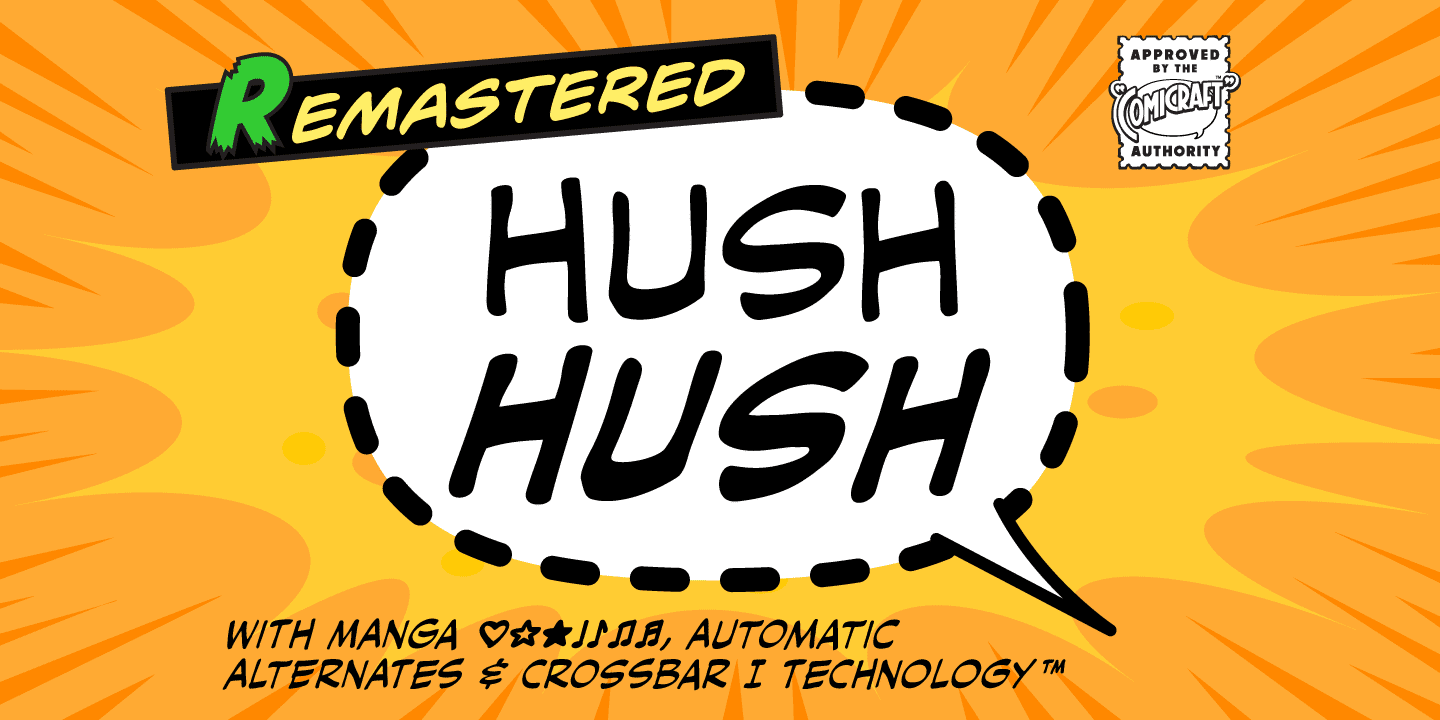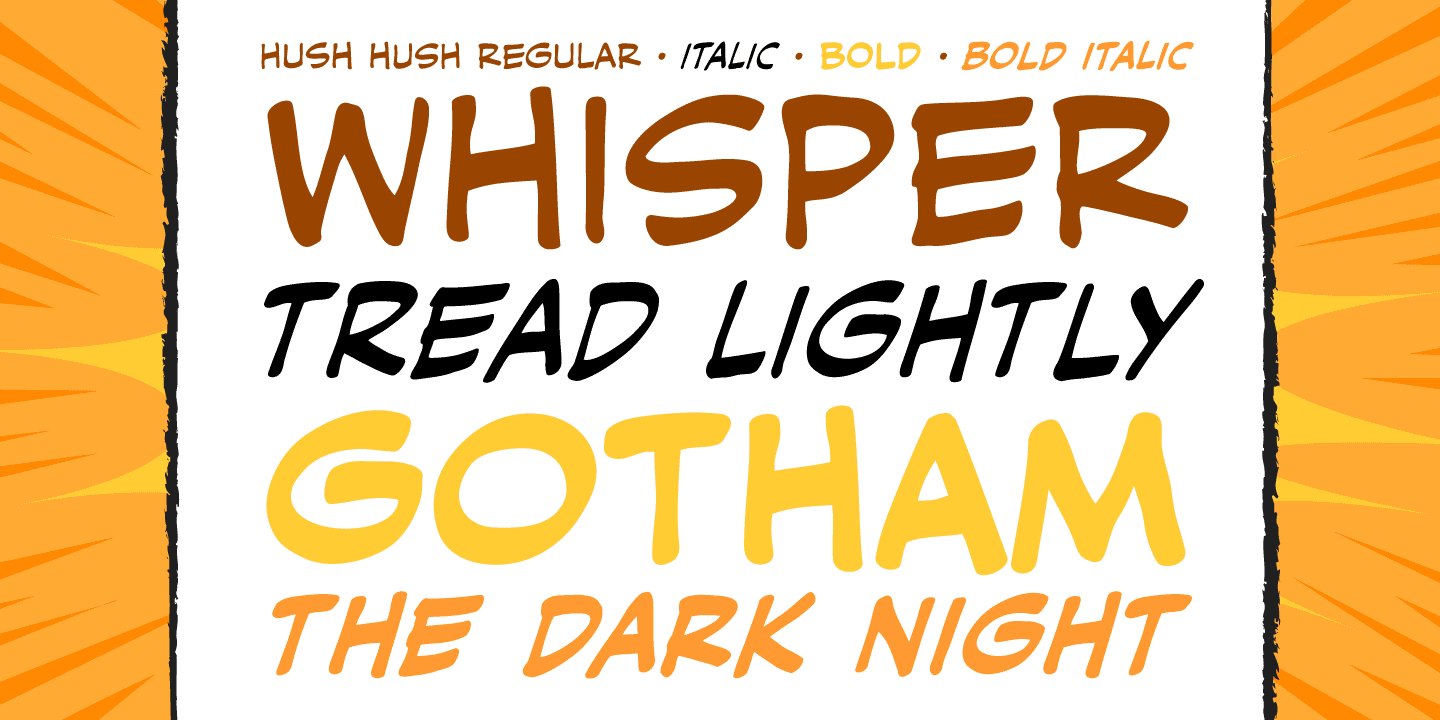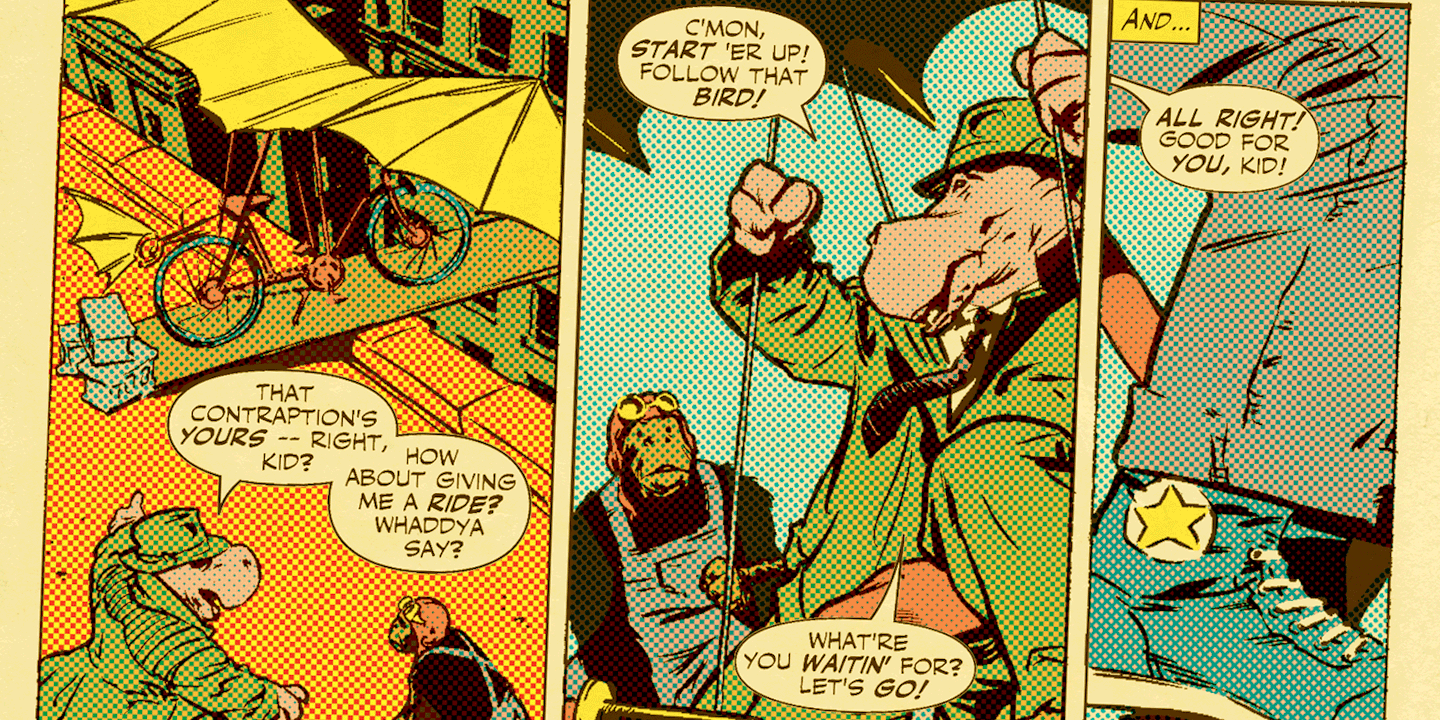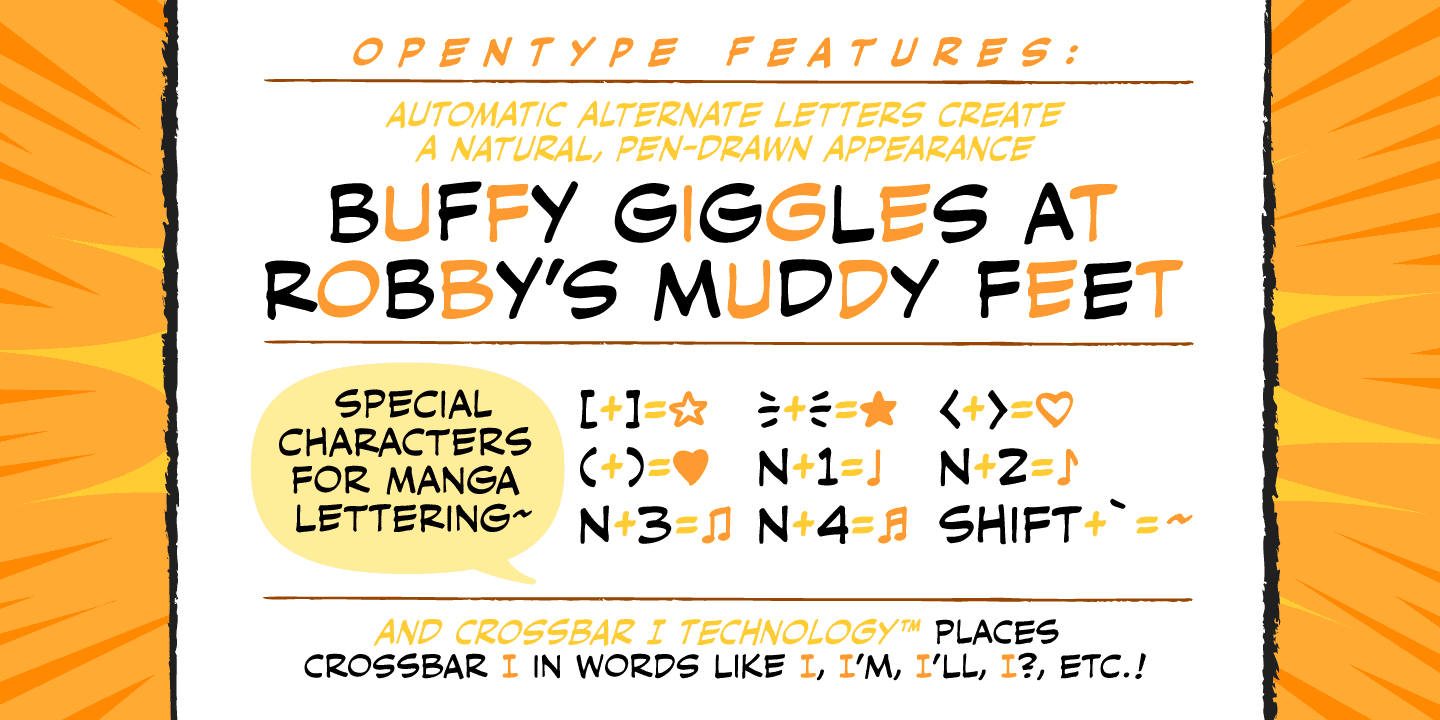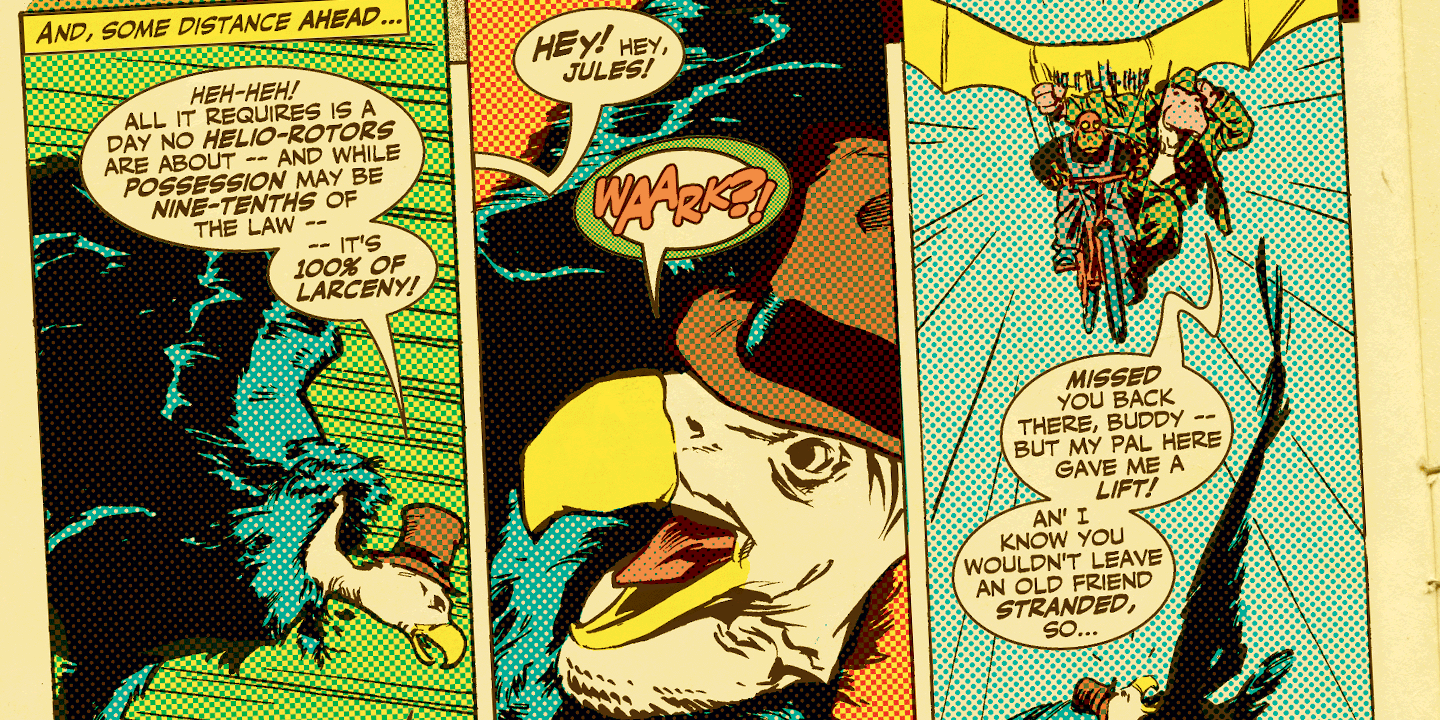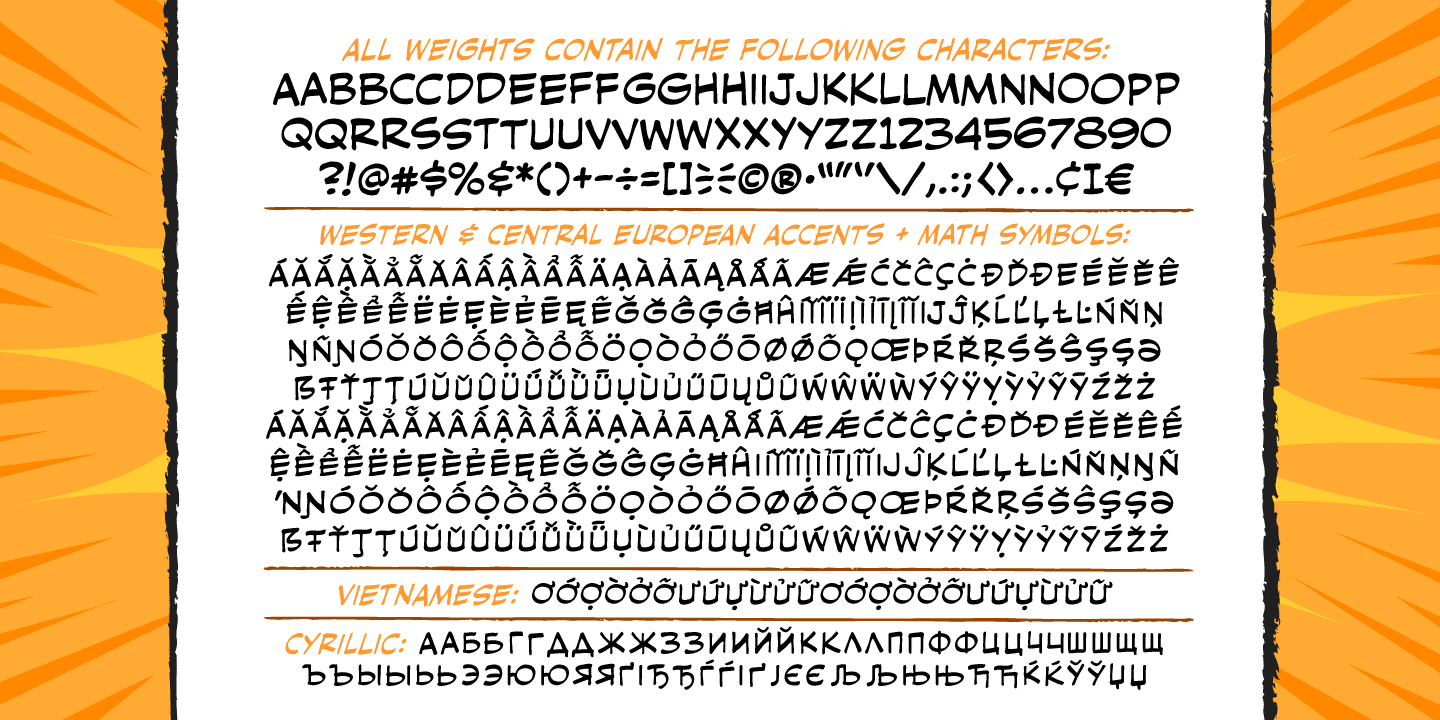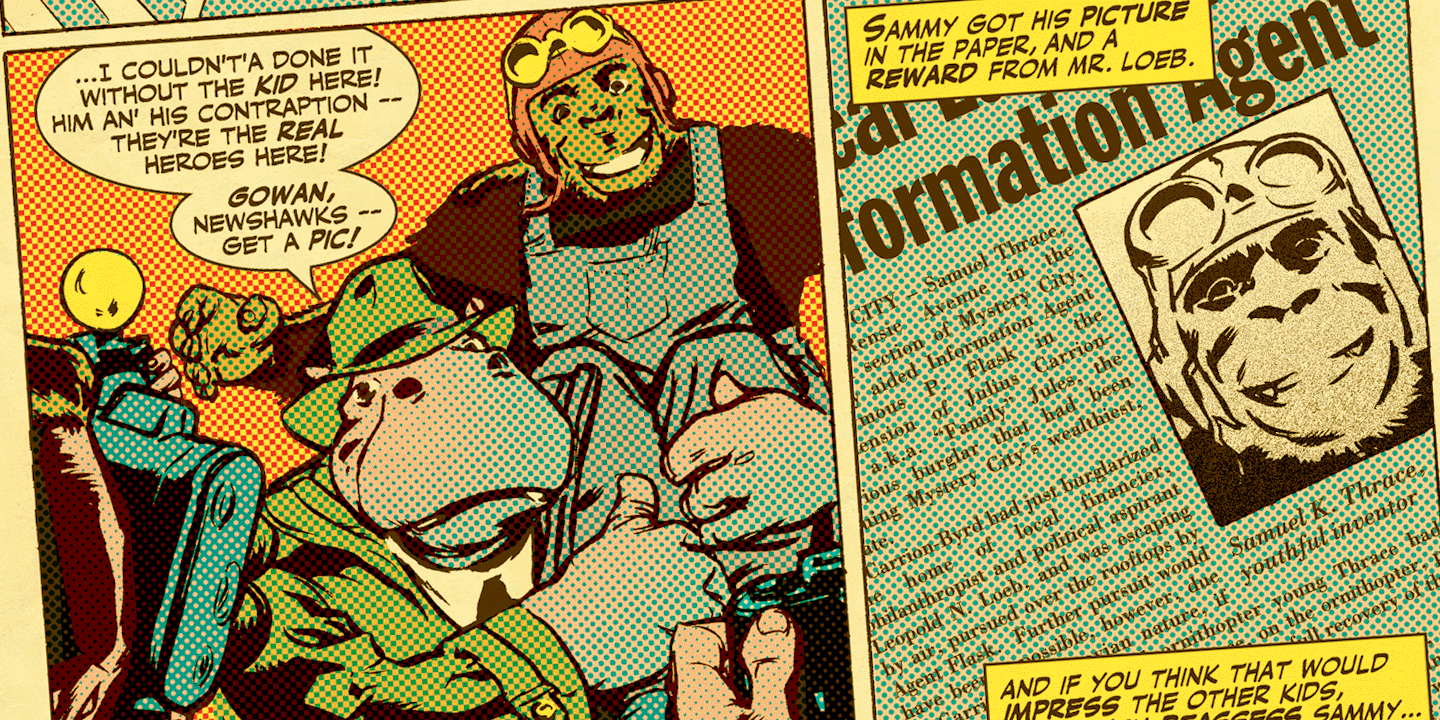
Hush Hush
If you thought you heard someone callin’ your name just now, you might have caught the firm but soft-spoken tones of Comicraft’s classy balloon lettering font, HushHush. Created in the style of the newspaper strips of the 30s and 40s, HushHush captures the slick movements of the skilled hand letterers of that era. Gracing the pages of Jeph Loeb and Jim Lee’s chart-topping BATMAN storyline -- which by a staggering coincidence was also called "Hush" -- these characters have brought to life the words of Two Face, The Joker, Scarecrow, Catwoman, Batman and Robin -- from every whisper to every scream.